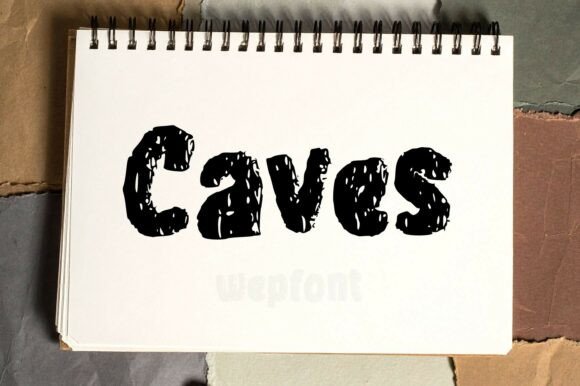
Unleash the Wild Beauty of Caves Font: A Journey Through Organic Elegance
Welcome to the timeless allure of Caves, a masterfully distinguished decorative display font that emanates an organic, unrefined elegance. This extraordinary font is designed to inject a tangible warmth into your designs, kindling an air of natural authenticity bursting with adventure. Every angular letterform in Caves is a masterpiece in itself, being skillfully shaped with irregular fringes, finely chiseled, and etched for a handcrafted charisma that triumphs over digitized sophistication.
The Art of Imperfection: What Makes Caves Unique
The true charm of Caves lies within its gentle imperfections, producing a captivating, singular aesthetic that is as versatile as nature itself. Unlike conventional fonts that strive for precision and uniformity, Caves celebrates the beauty of irregularities. Each letterform is carefully crafted to showcase a unique character, with rugged outlines and slightly weather-beaten aesthetics that evoke a sense of nostalgia and timelessness.
Beyond Typography: An Experience of Wilderness
Caves transcends the confines of a typical font and promises an awe-inspiring journey through the wilderness with every imprint. This font is not just a collection of letters; it’s an experience that transports you to a world of natural wonder and exploration. With Caves, you can add a touch of adventure to your designs, whether you’re working on a branding project, a packaging design, or a marketing campaign.
A Perfect Blend of Rustic and Modern
Bathed in rustic allure, Caves encapsulates nostalgic echoes while preserving a modern charisma – a visual language not merely perceived but genuinely felt. This font is perfect for designers and crafters who want to create unique and captivating designs that stand out from the crowd. Whether you’re looking to add a touch of vintage charm or a dash of modern sophistication, Caves is the perfect choice.
Let Caves adorn your creative palette, be an integral part of your design process, and help you craft stunning visual stories. This versatile font can be used for a wide range of projects, including:
- Branding and logos: Create a unique and memorable brand identity with Caves.
- Packaging design: Add a touch of rustic charm to your product packaging.
- Marketing campaigns: Use Caves to create eye-catching headlines and promotional materials.
- Web design: Enhance your website’s typography with the distinctive character of Caves.
Why Choose Caves Font?
Here are just a few reasons why Caves font stands out from the rest:
- Unique character: Caves offers a distinctive and captivating aesthetic that’s unlike any other font.
- Versatility: This font can be used for a wide range of projects and applications.
- Handcrafted charm: Caves boasts a handcrafted charisma that adds a touch of warmth and authenticity to your designs.
- Easy to use: Caves is a decorative display font that’s easy to use and integrate into your design workflow.
In conclusion, Caves font is a game-changer for designers and crafters who want to add a touch of organic elegance to their designs. With its unique character, versatility, and handcrafted charm, Caves is the perfect choice for anyone looking to create captivating and memorable visual stories. So why wait? Unleash the wild beauty of Caves font and take your designs to the next level.